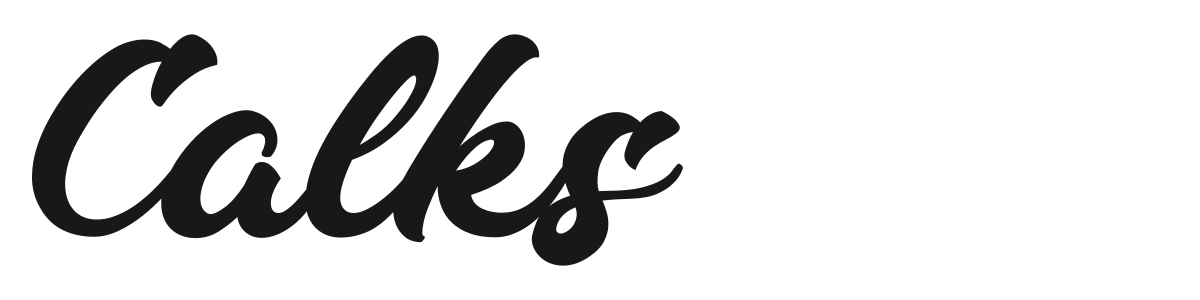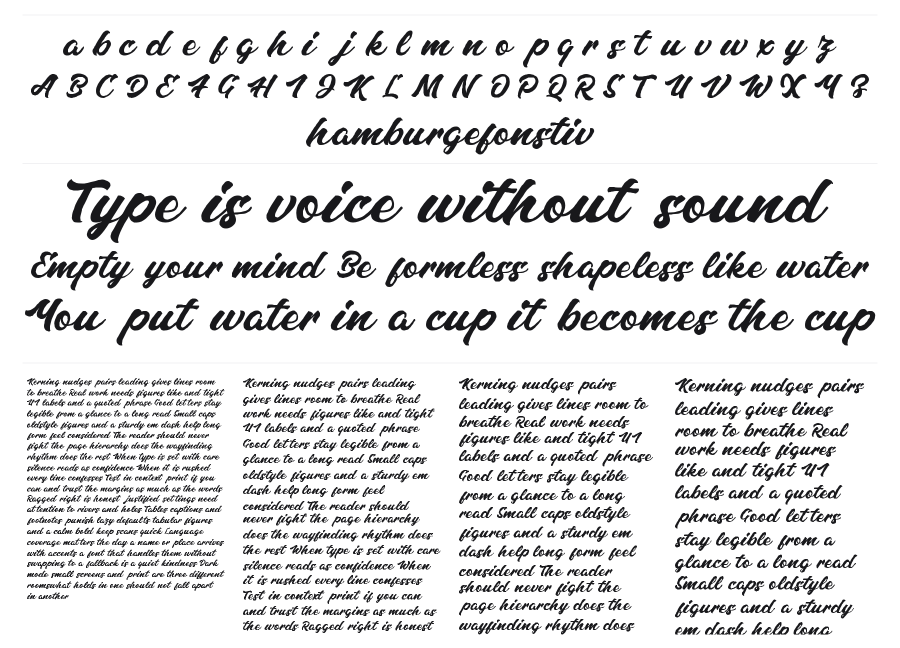
Calks
Calks is a bold, flowing casual script with the energy of hand-lettered signage and the polish of a refined brush design. Thick downstrokes taper into hairline connections between letters, creating a rhythmic, linked flow across a line. The heavy weight and confident slant make it a natural choice for packaging, logos, and anywhere a handcrafted personality is needed.